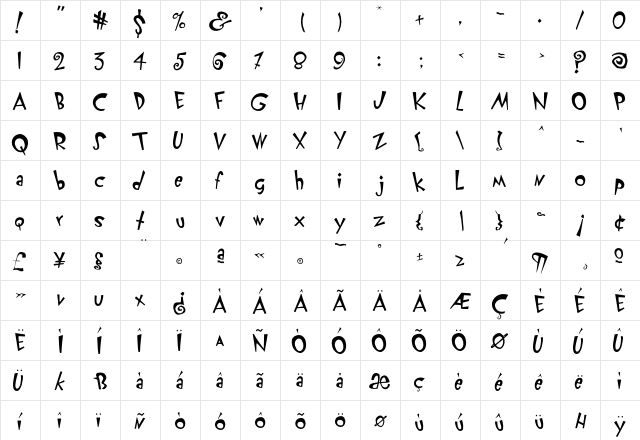
KlunderScript Roman
Design Context for KlunderScript Typeface
KlunderScript brings a calligraphic fluidity to the page — its connecting strokes and expressive curves give it an unmistakably human quality.
Font Pairing: Combine KlunderScript with a simple geometric sans for maximum contrast — the tension between flowing curves and clean structure is a classic typographic pairing.
Pro Tip: Use KlunderScript for short runs of text — names, titles, or taglines. Extended body copy in script faces tires the eye quickly.